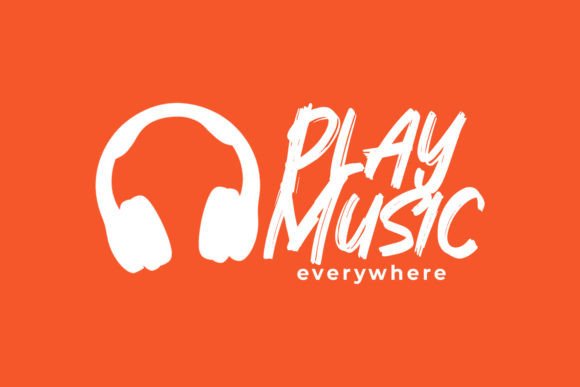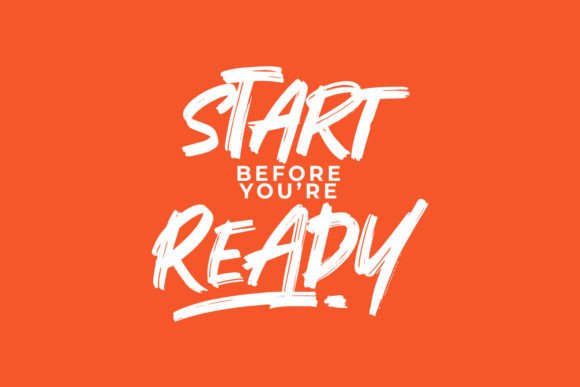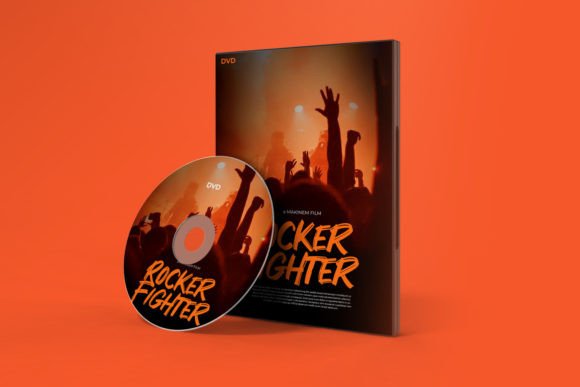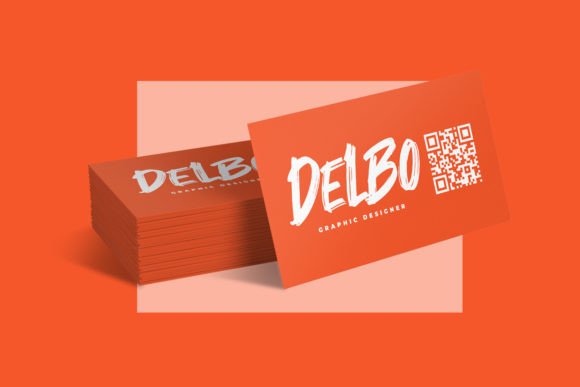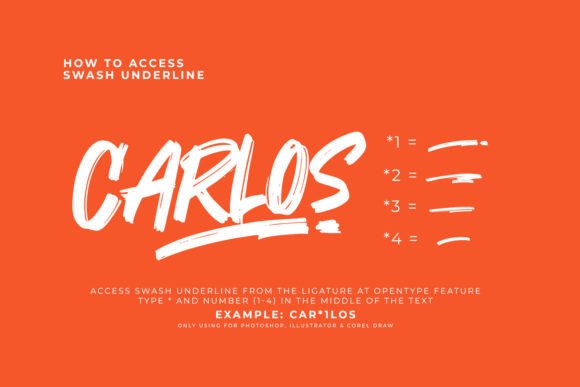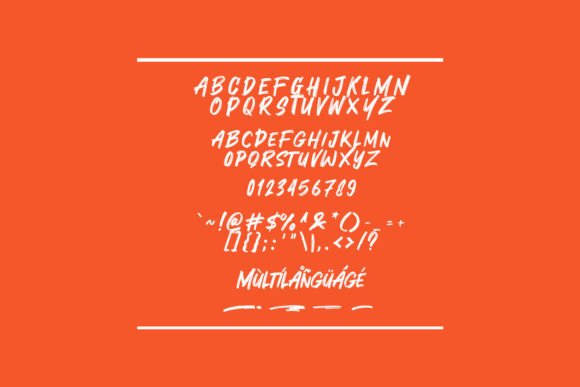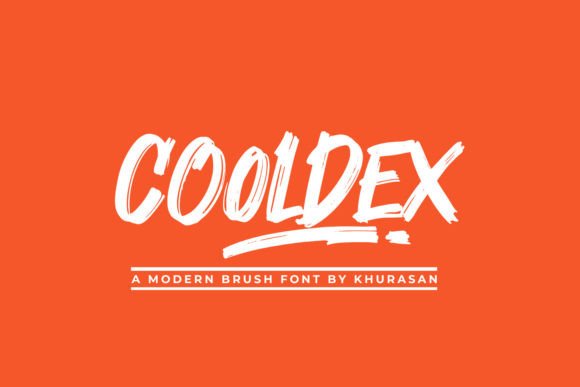
Introducing Cooldex Font: The Ultimate Modern Bold Brush Font for Designers
Are you tired of using the same old fonts for your designs? Look no further! Cooldex Font is here to revolutionize your creative projects with its modern bold brush style. This quirky display font is perfect for making a statement and adding a touch of personality to your posters, logos, magazines, book covers, banners, and so much more.
What Makes Cooldex Font So Special?
Cooldex Font is a game-changer for designers and crafters alike. Its unique bold brush style gives it a distinctive look that’s sure to grab attention. Whether you’re working on a commercial project or a personal creative endeavor, this font is guaranteed to make your designs stand out from the crowd.
One of the best things about Cooldex Font is its versatility. It can easily be matched to an incredibly large set of projects, making it a valuable addition to your font library. From bold and bright posters to elegant and sophisticated logos, this font can adapt to any design style or theme.
Cooldex Font is perfect for designers who like to experiment with different styles and formats. Here are just a few examples of the many projects you can use this font for:
- Posters: Create eye-catching posters for events, promotions, or advertising campaigns that demand attention.
- Logos: Design unique and memorable logos for businesses, products, or services that need to make a bold statement.
- Magazines: Use Cooldex Font to add a touch of personality to your magazine layouts, headers, and titles.
- Book Covers: Create stunning book covers that grab readers’ attention and reflect the tone and style of your book.
- Banners: Design vibrant and engaging banners for websites, social media, or advertising campaigns.
Why Choose Cooldex Font?
With so many fonts available, why choose Cooldex Font? Here are just a few reasons why designers and crafters love this font:
- Unique Style: Cooldex Font has a distinctive modern bold brush style that’s unlike anything else on the market.
- Highly Versatile: This font can be used for a wide range of projects, from posters and logos to magazines and book covers.
Tips for Using Cooldex Font
Here are a few tips for getting the most out of Cooldex Font:
- Experiment with Colors: Cooldex Font looks great in bold and bright colors, but don’t be afraid to experiment with different color schemes to find the perfect fit for your design.
- Play with Sizes: This font looks great in large sizes, but it can also be used for smaller design elements like headers and titles.
- Mix and Match: Try pairing Cooldex Font with other fonts to create a unique and eye-catching design.
Cooldex Font is a modern bold brush font that’s perfect for designers and crafters who want to add a touch of personality to their designs. With its unique style, versatility, and ease of use, this font is sure to become a favorite in your font library. Whether you’re working on a commercial project or a personal creative endeavor, Cooldex Font is the perfect choice for making a statement and standing out from the crowd.